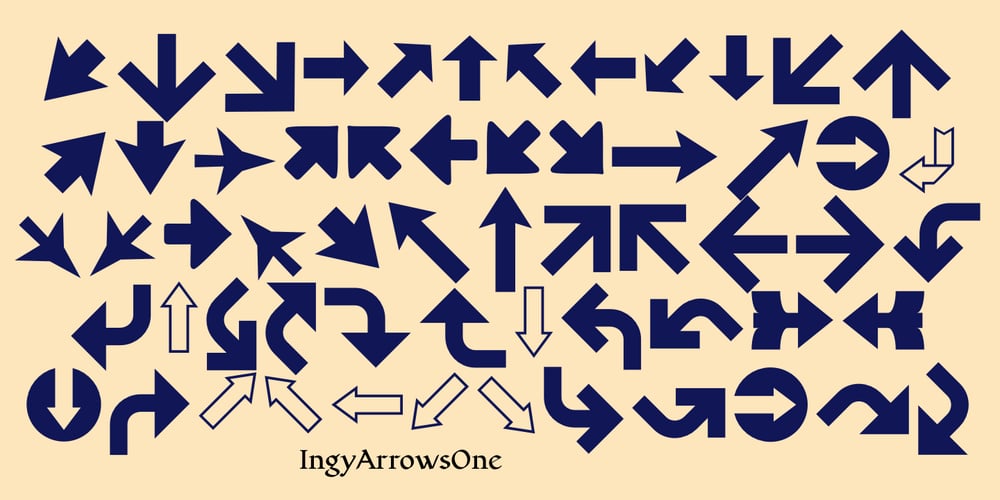
IngyArrows Font Family was designed by Robert Schenk and published by Ingrimayne Type. IngyArrows contains 3 styles and family package options. IngyArrows is a set of three fonts with three sets of arrows, with one of them a blend of the other two, where normally there are standard numbers, letters, and punctuation marks. The revision of 2011 added many of the arrows that exist in several places in the unicode codings and that cannot be accessed by normal keystrokes.